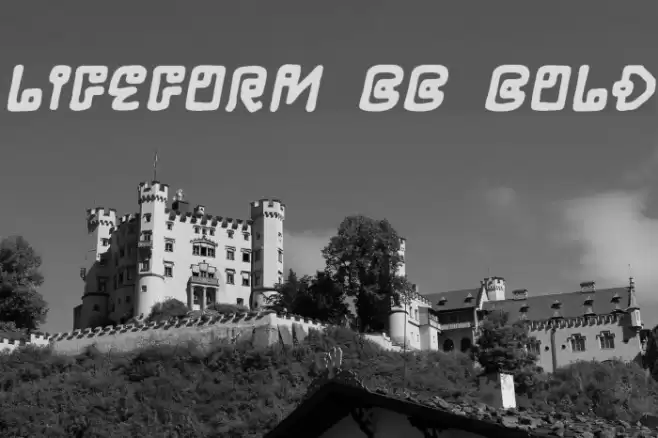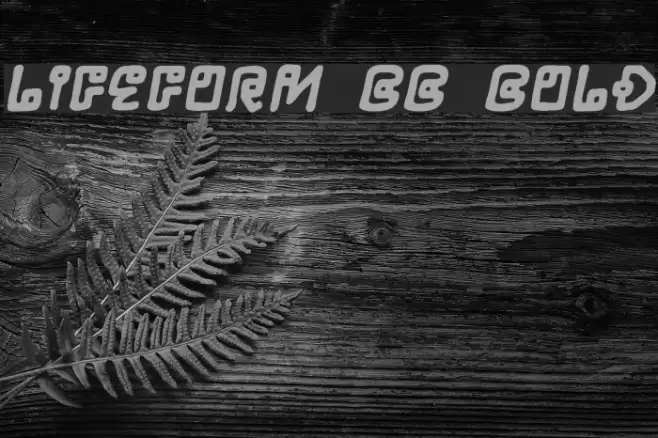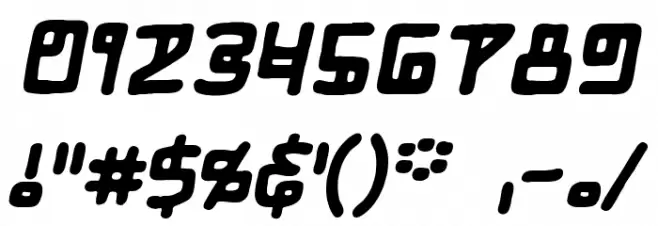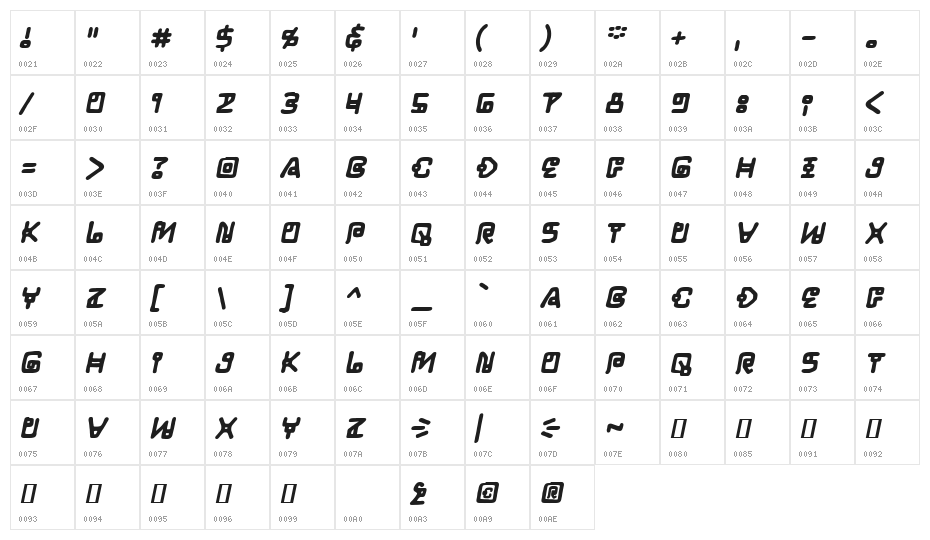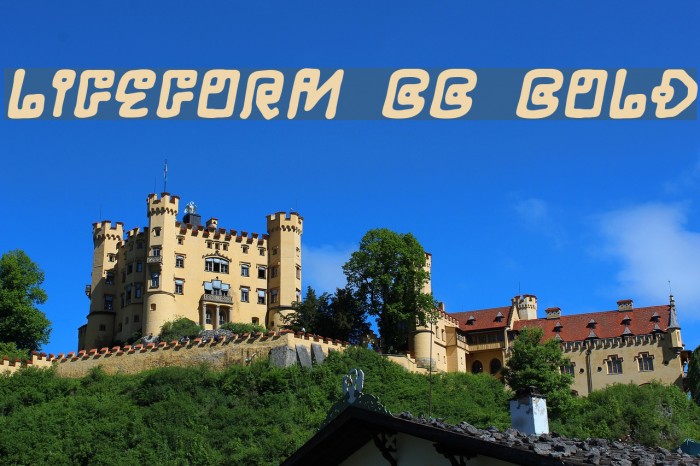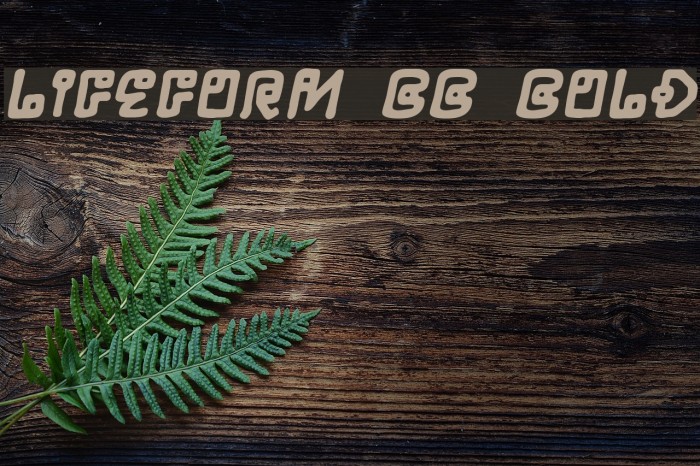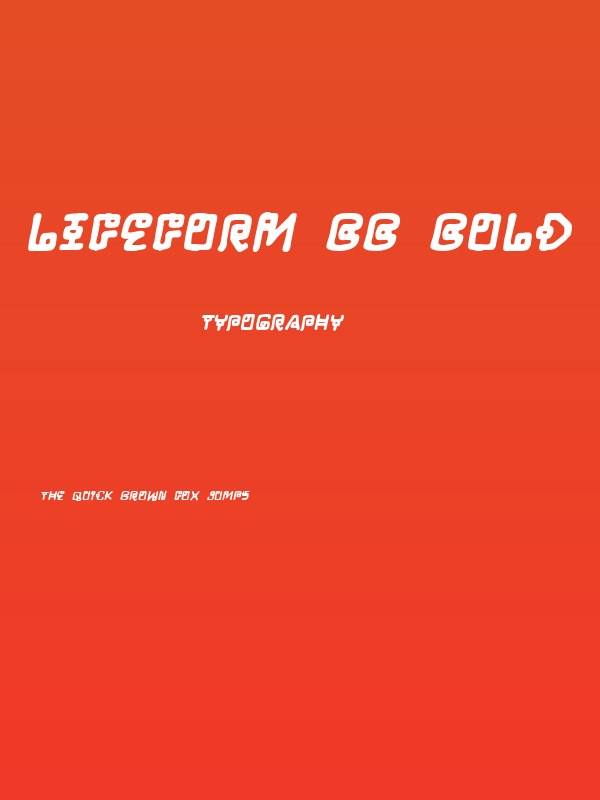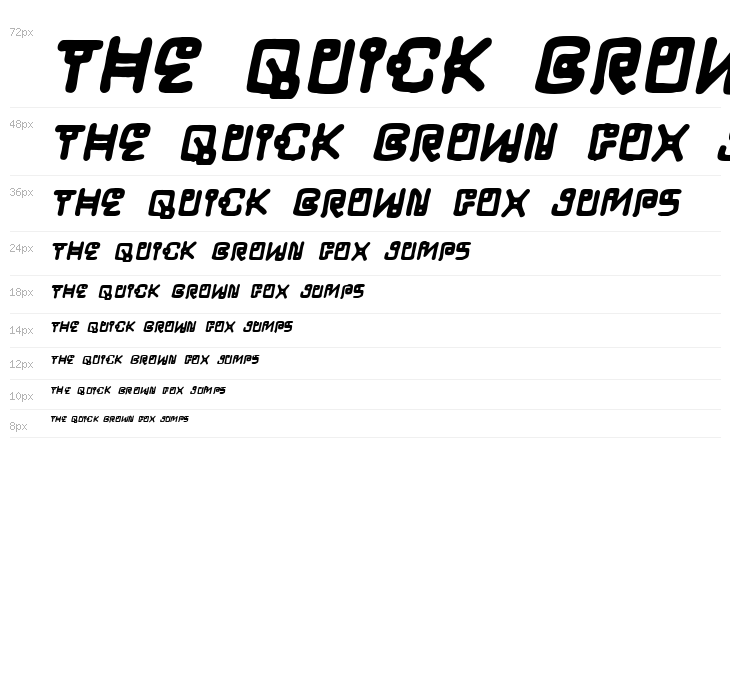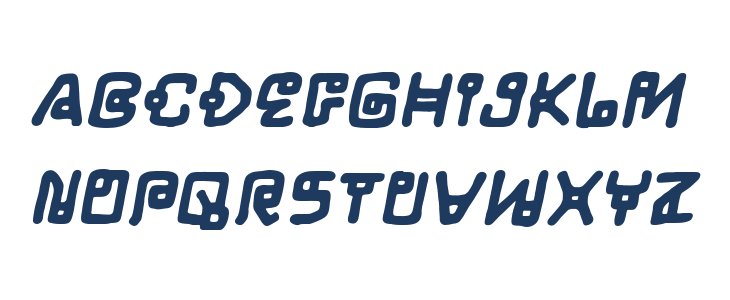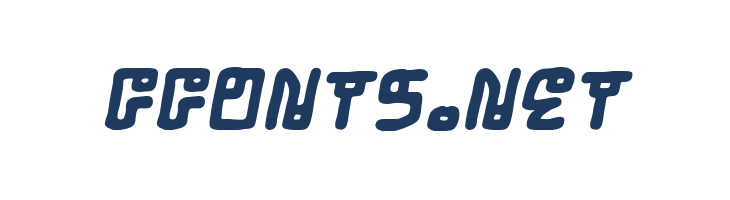
LifeForm BB Bold Font
LifeForm BB Bold Description
This font features a bold and playful design with a futuristic and slightly retro aesthetic. The characters are rounded and thick, giving them a substantial presence on the page. The letters have a unique, almost sci-fi appearance, with some characters incorporating unexpected curves and angles that add to their distinctiveness. The numbers and special characters follow the same design principles, ensuring a cohesive look across all glyphs. This font is ideal for projects that require a standout, eye-catching typeface that conveys a sense of fun and modernity.
A bold, playful font with a futuristic and retro vibe from Uncategorized fonts.
- Proposed Projects: Ideal for sci-fi themed posters, video game graphics, and creative branding projects.
- Overall Style: Futuristic, Retro